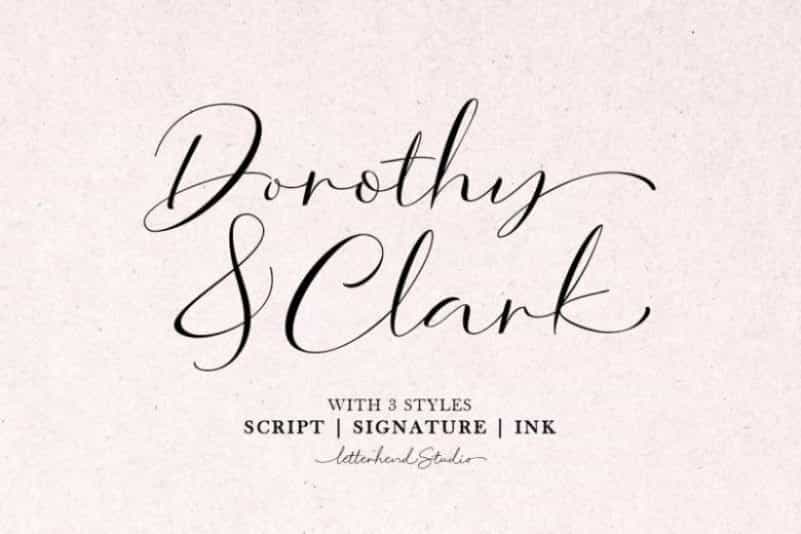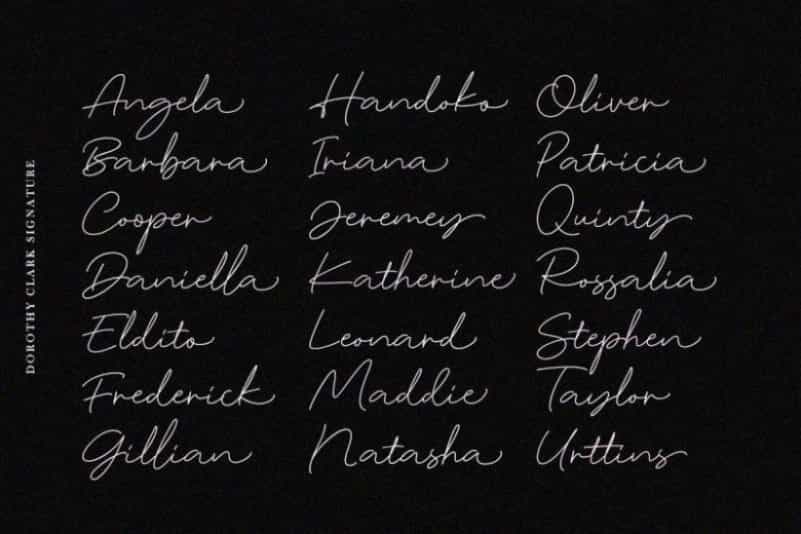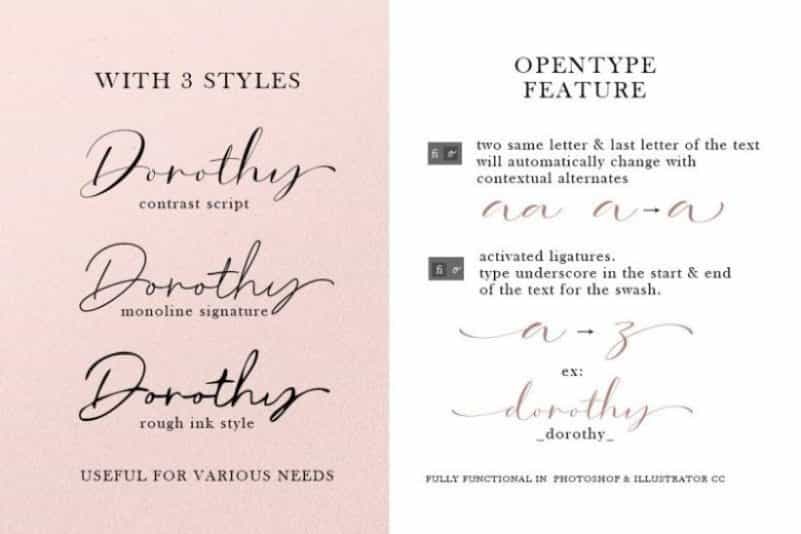
Introducing Dorothy Clark Font. This is an example of calligraphy font that has been designed to suit the contemporary world. It was handwritten based on the theme of modern calligraphy. It brings about a noble and glamorous appearance in design. It was developed by Letterhend Studio.